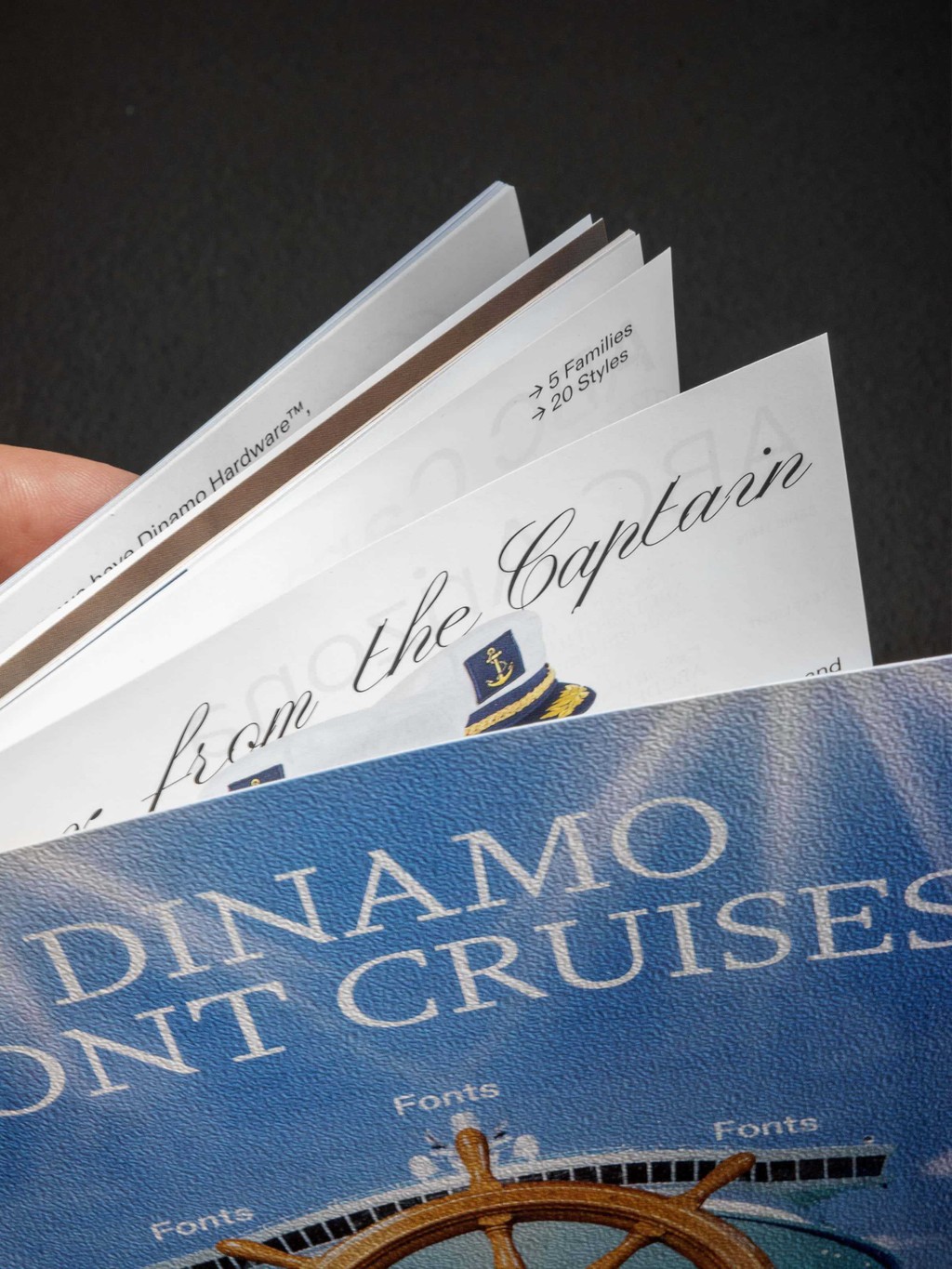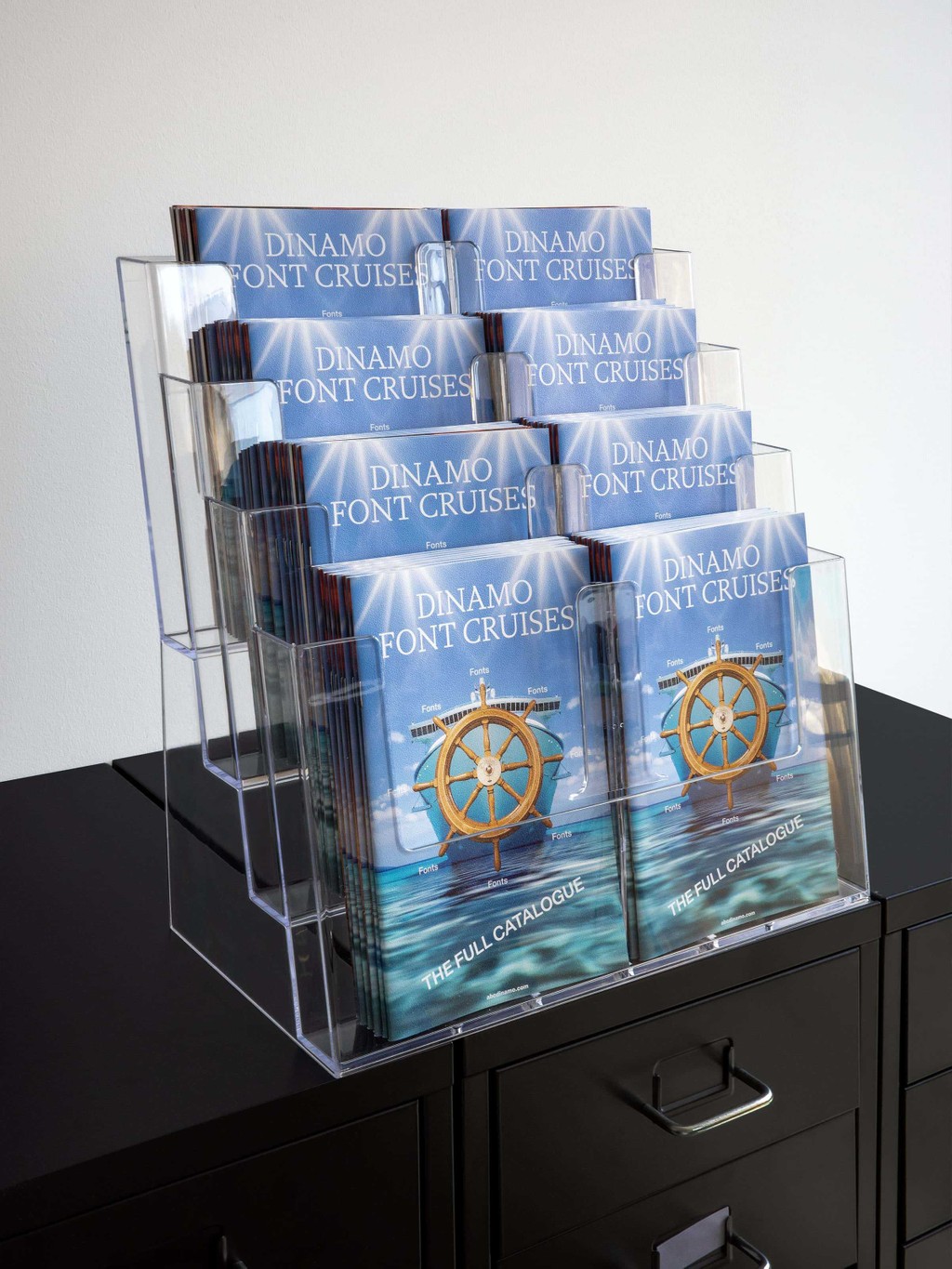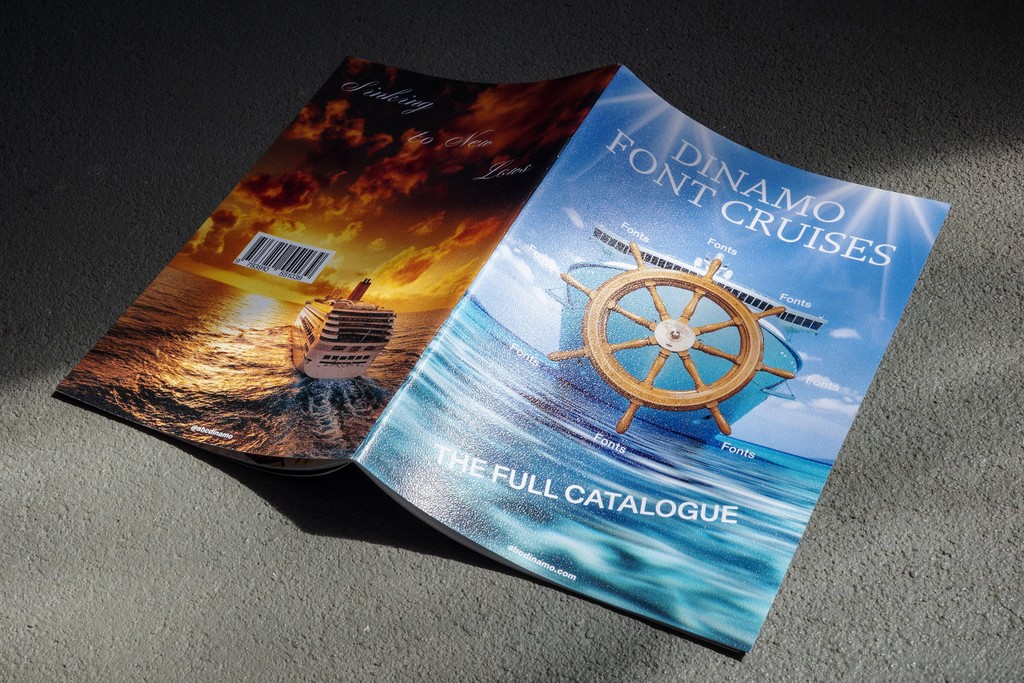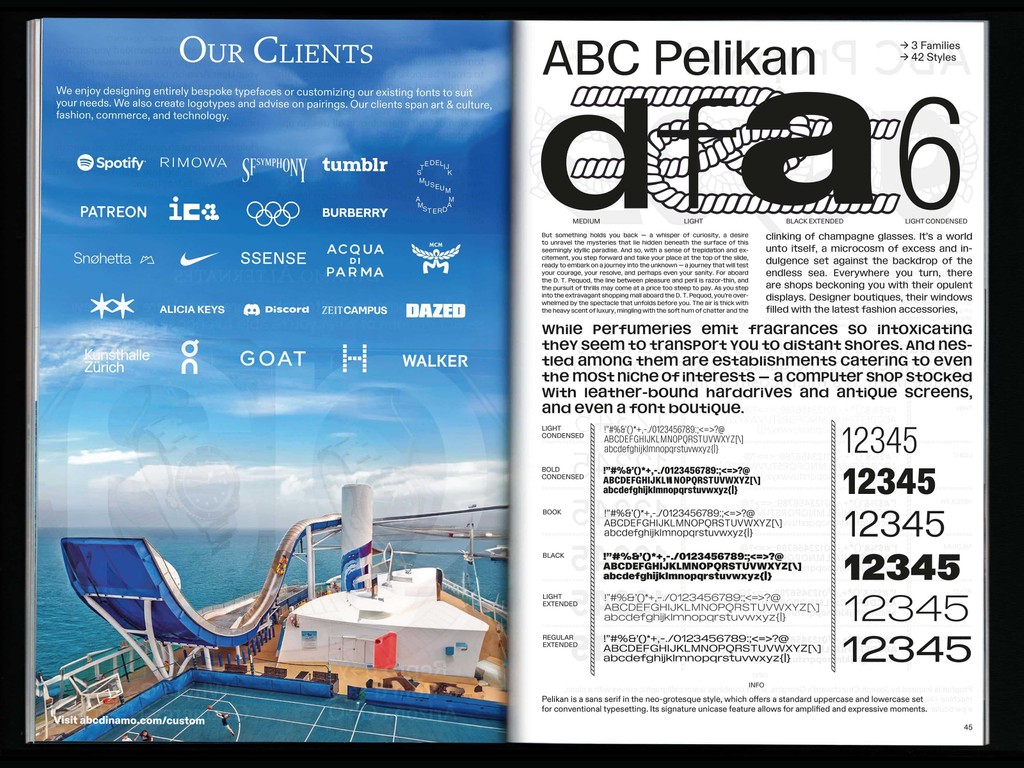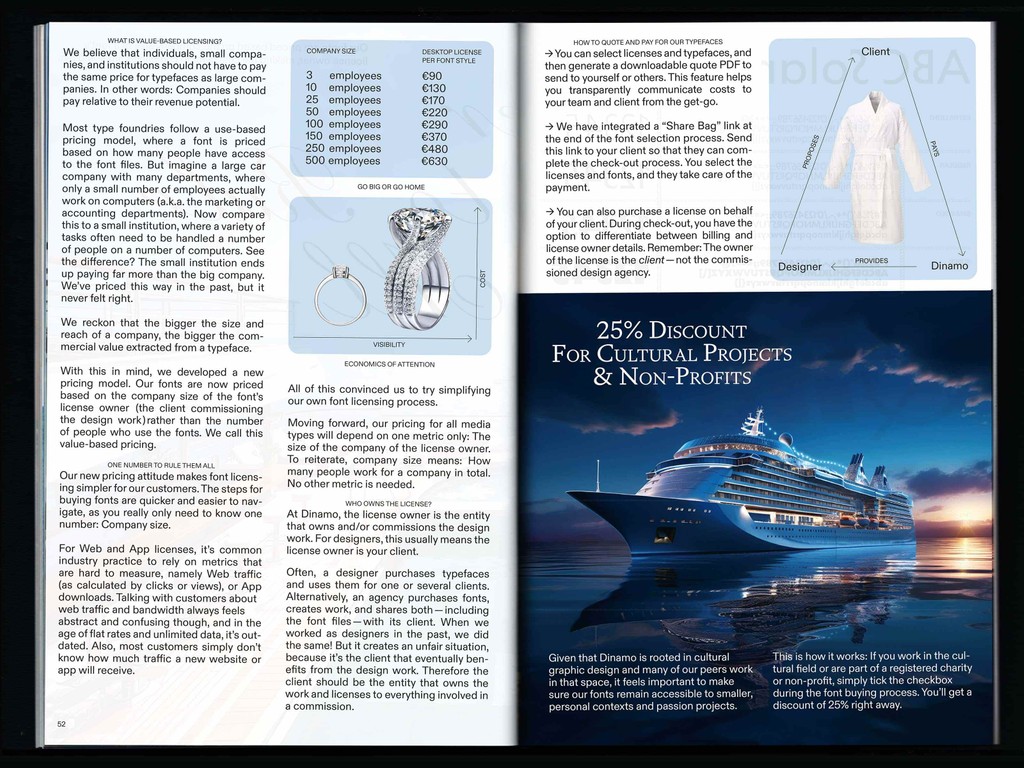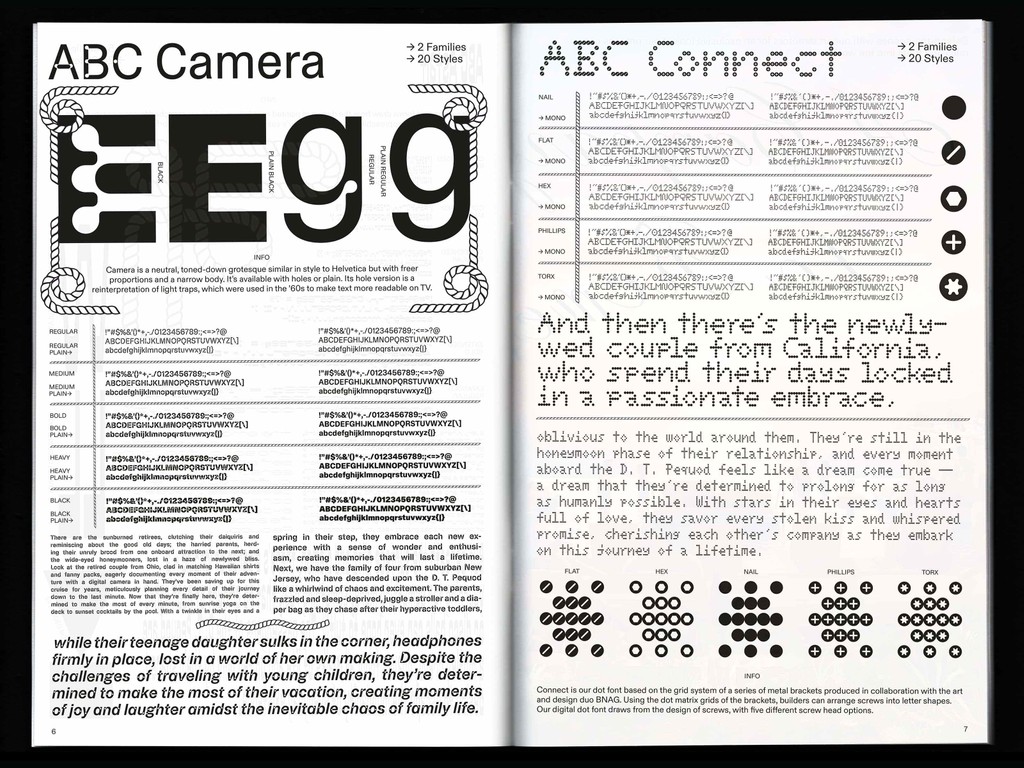
Dinamo Font Cruises
Sinking to new lows.
Over the past 10 years, we’ve managed to make many, many fonts; we’re literally drowning, or bathing, in them. What they all have in common is that they share an interest in thoughtful research and look at that rich material through the lens of today. They all take ideas, especially the silly ones, really seriously; baking gestures from outside the type world into the tiny, bit-sized font format. We hope this, and the rest of the Dinamo universe, become clear through the 64 pages of our new A5 font catalogue.
Design: Shortnotice Studio
Editing & Creative Direction: Dinamo (Madeleine Morley & Johannes Breyer)
Published by Dinamo Editions